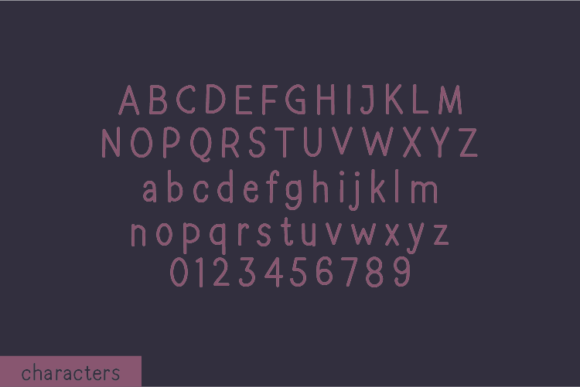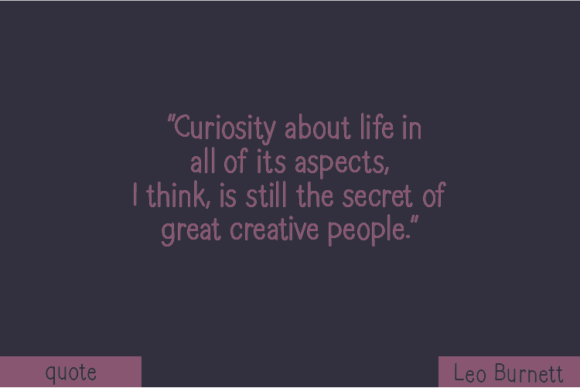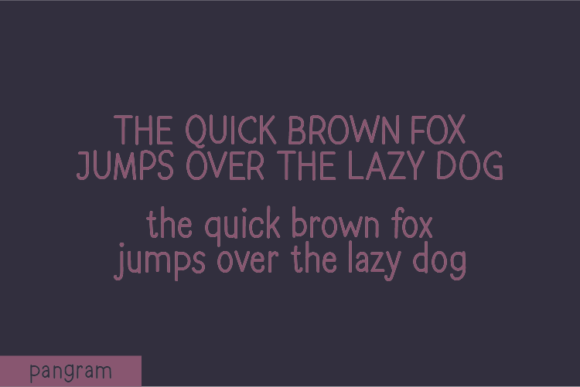
Introduction to Reondiose Font
Reondiose is a natural handwritten font made without changing a single node in each character’s indentation – this makes this font very interesting and unique.
Perfect for quotes, notes, tees, and any product design .
Key Features of Reondiose Font